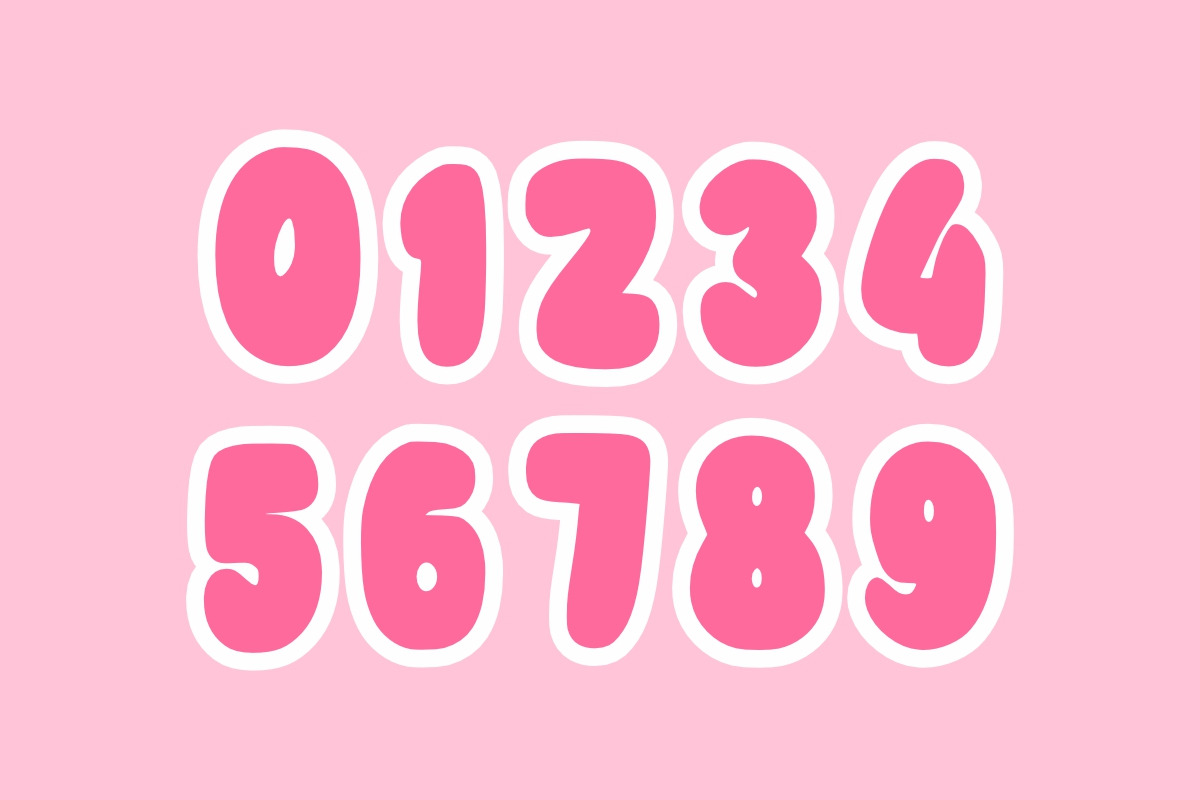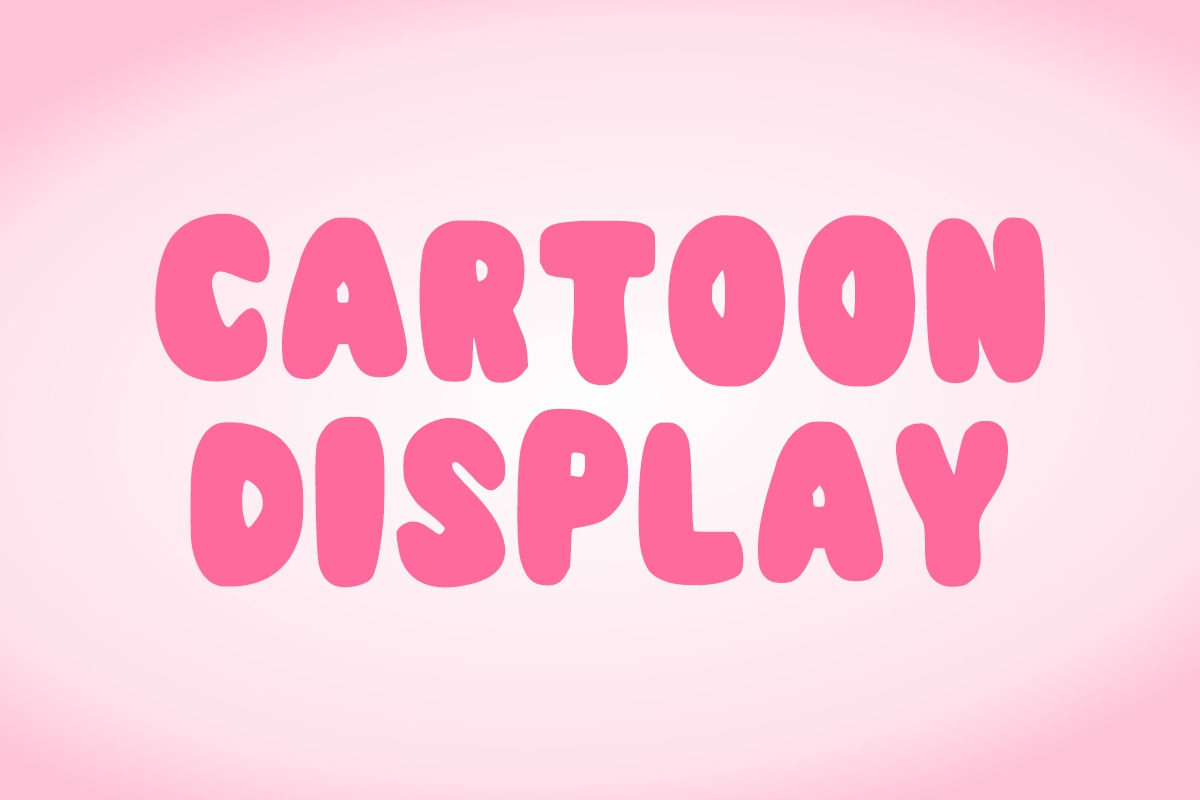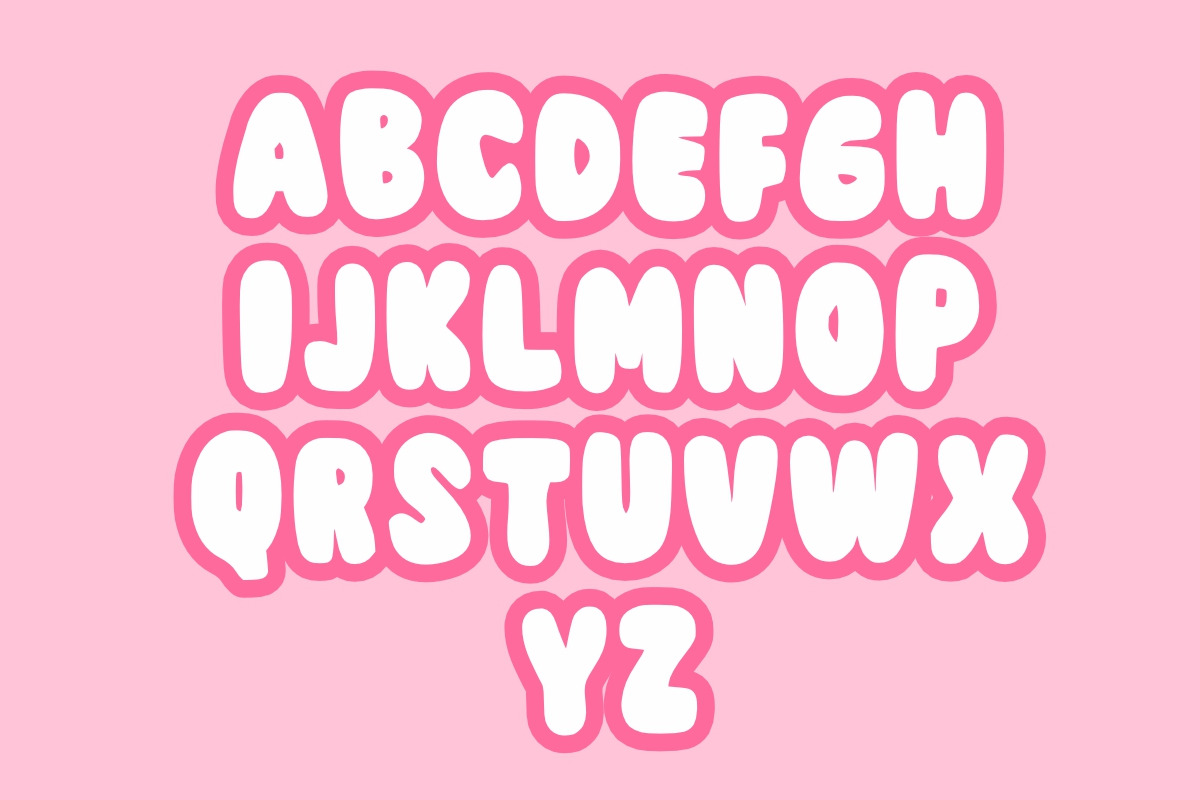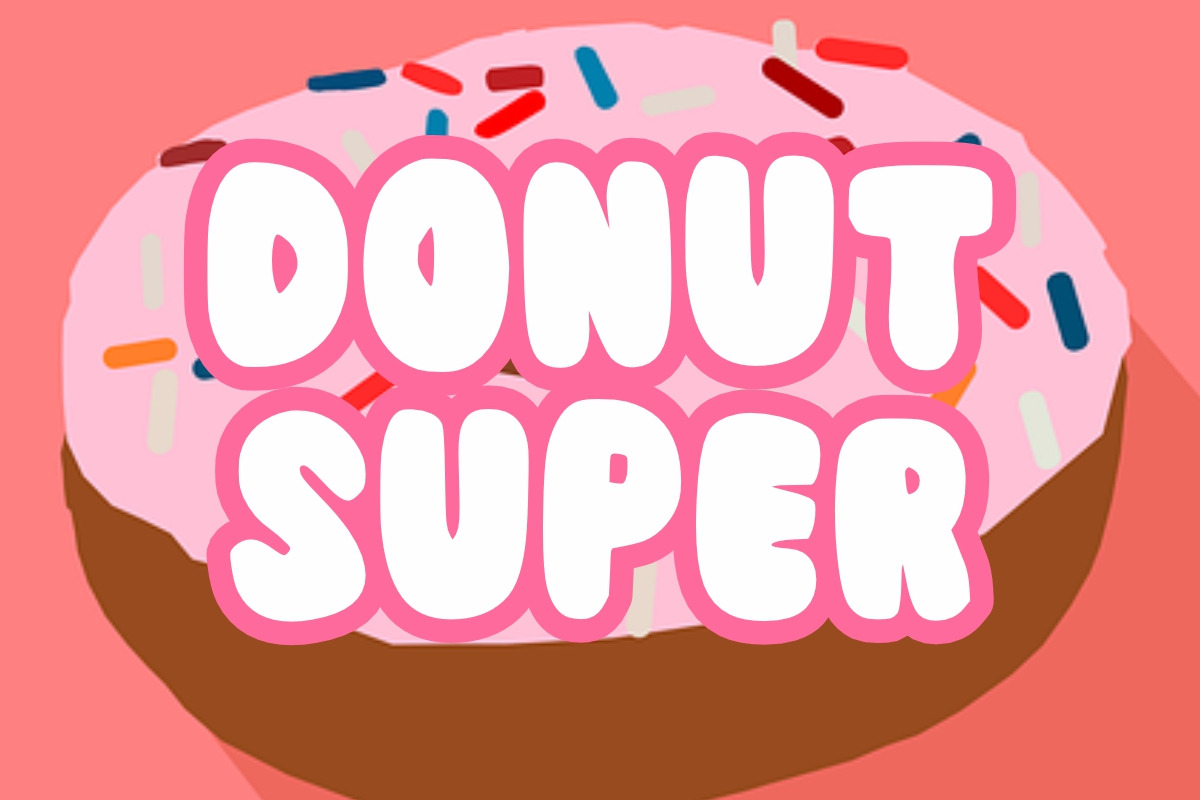
Love Baby
Love Baby is a cartoon and display font that conveys impeccable friendliness. Whether you’re using it for crafts, book covers, digital designs, presentations, or greeting cards, this font has the potential to become your favorite to-go font, no matter the occasion!